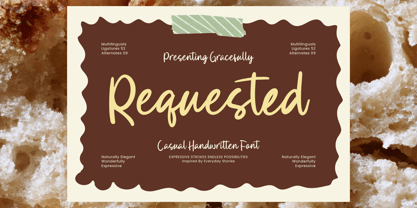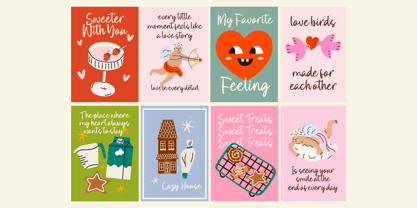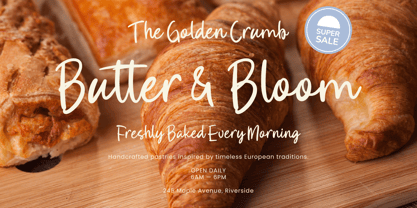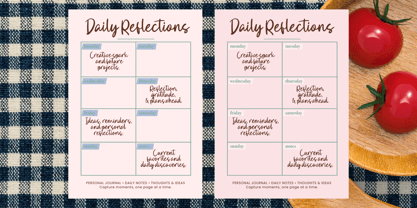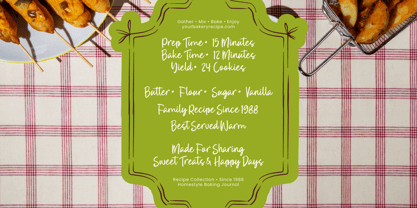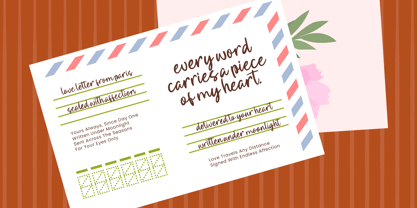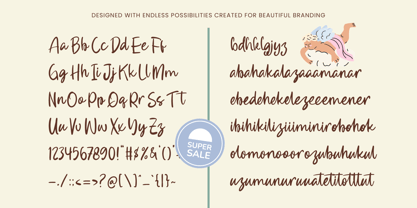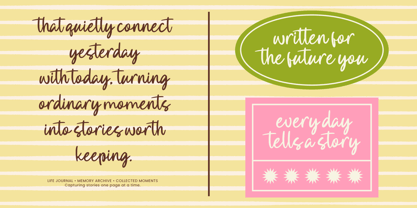
Requested
La famille de polices Requested a été conçue par Shiddiq Roihan et publiée par Amorfa Type. Requested contient 2 styles et options de package familial. En savoir plus sur cette famille
Requested is a casual handwritten font designed to capture the warmth and authenticity of everyday handwriting. Inspired by journals, planners, handwritten notes, recipe cards, and personal correspondence, it delivers a natural and approachable personality that feels genuinely human.
With relaxed strokes, playful movement, and organic letterforms, Requested creates typography that feels personal without sacrificing readability. Its handcrafted appearance makes it ideal for projects that require warmth, creativity, and a friendly visual voice.